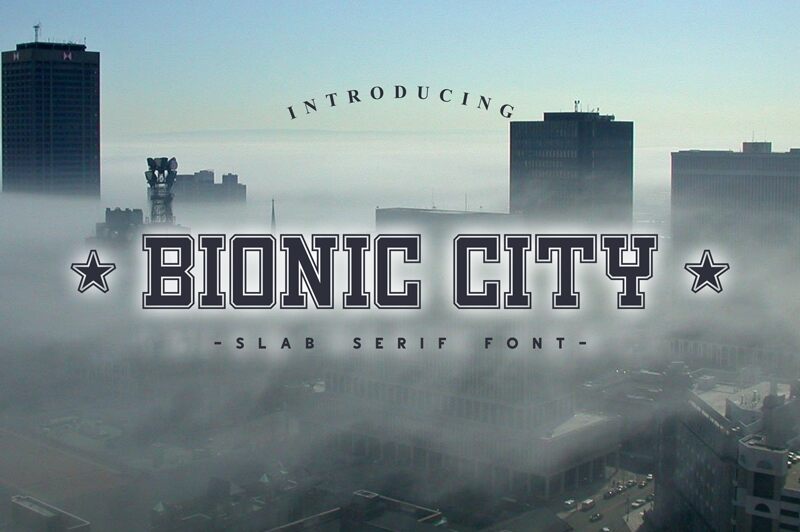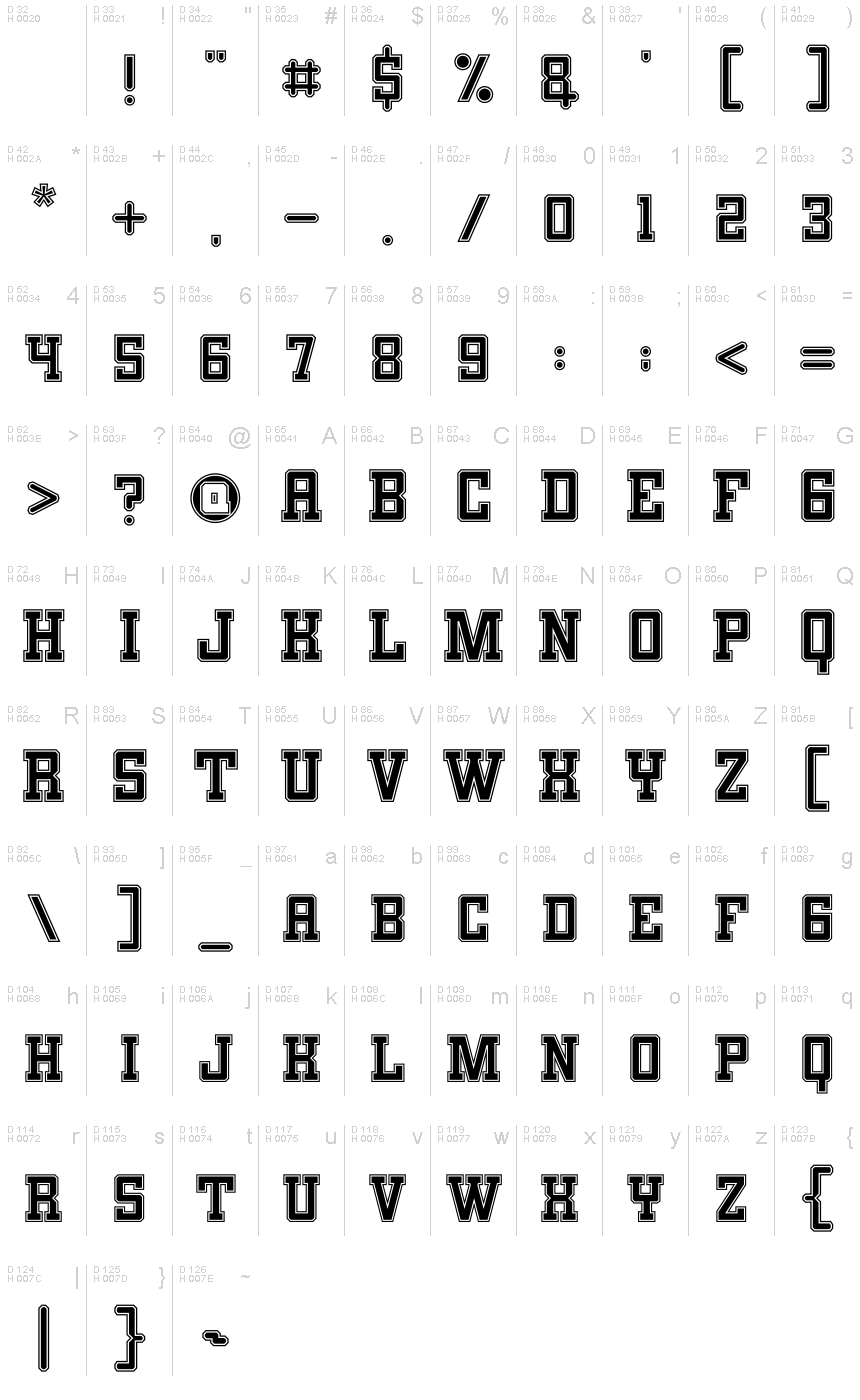
Bionic City
Bionic City font, designed by Akhmad Afandhi, exudes a captivating old-school charm with its striking condensed style. This display typeface features bold shapes that demand attention while maintaining a sense of nostalgia. Its unique character forms blend retro aesthetics with modern flair, making it visually arresting and versatile.
The font's clean lines and compact design create an impactful presence, perfect for eye-catching headlines and branding efforts. Whether used in posters, logos, or digital platforms, Bionic City evokes a sense of vibrancy and personality. Its boldness invites creativity in various contexts, from urban-themed designs to contemporary retro applications. In every setting, this font promises to enhance visual communication while standing out strikingly against competitors.